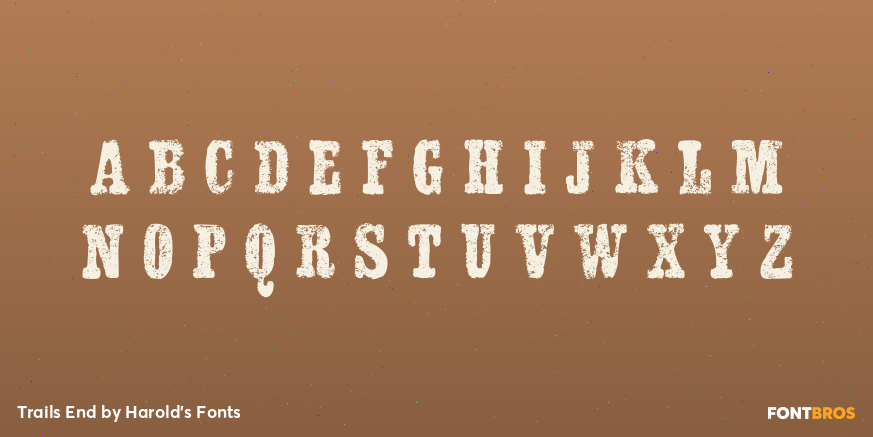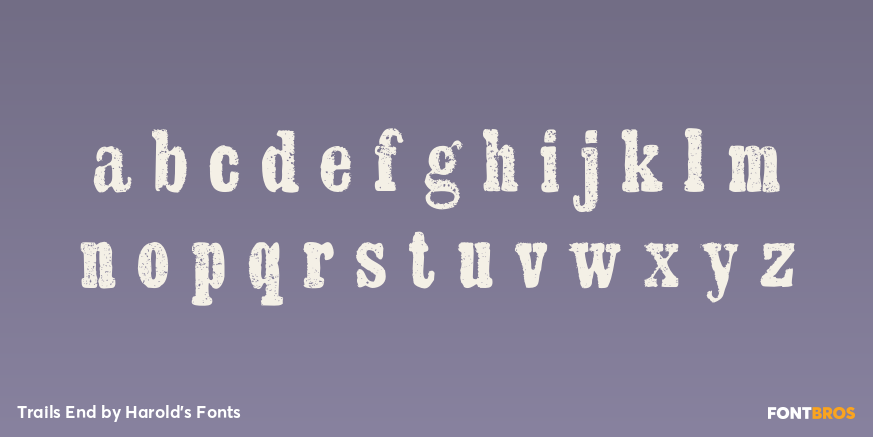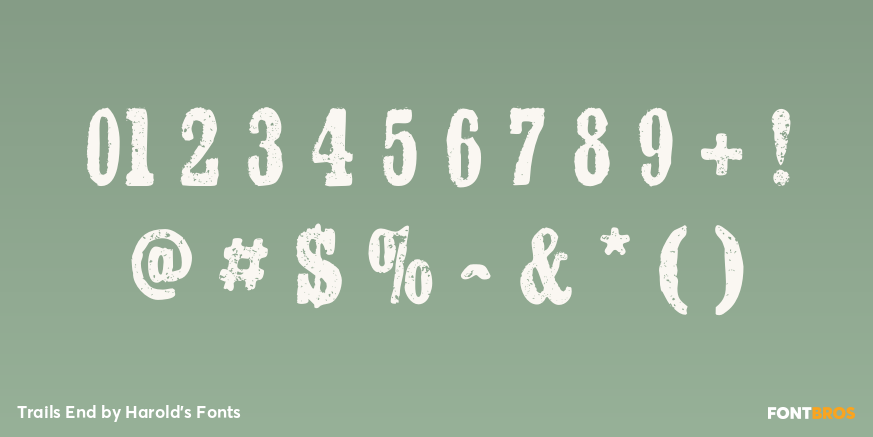
Trails End
Font Family by Harold's Fonts
TRAILS END began as a bold slab-serif font. To that, I've added a rough edge and grainy texture producing a unique rustic style. Trails End suggests crude letterpress printing on rough paper, a weathered sign, or a well-worn T-shirt.